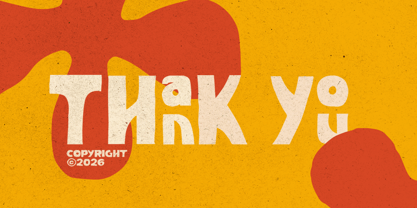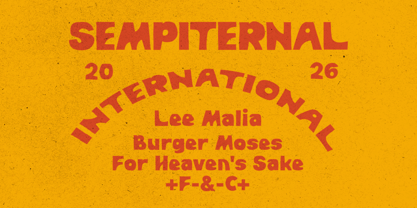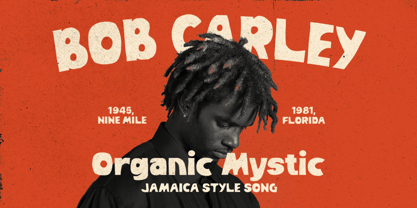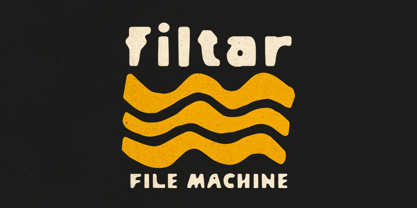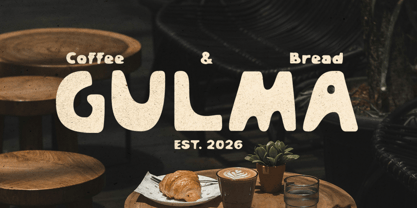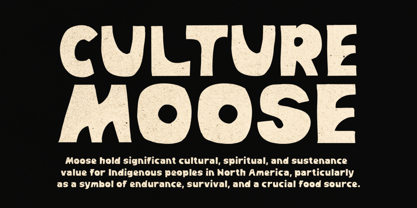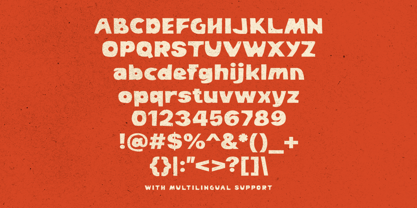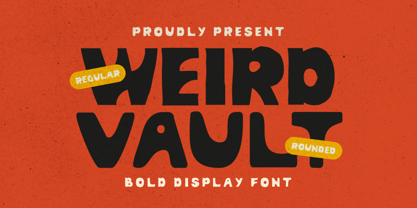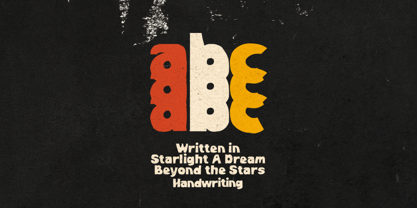
Weird Vault
La familia tipográfica Weird Vault fue diseñada por Ridho Azumarta y publicada por Bale Type. Weird Vault contiene 2 estilos y opciones de paquete familiar. Más información sobre esta familia
Weird Vault is a roughly handmade display bold font designed to bring a strong, authentic, and human-crafted character to your work. It comes in both Regular and Rounded styles, giving you the flexibility to choose the look that best fits your creative needs. With its bold presence and organic imperfections, Weird Vault is perfect for a wide range of applications, including logotypes, quotes, branding projects, packaging, posters, merchandise, social media graphics, and other designs that require a distinctive handcrafted feel. The font balances strength and personality, making it suitable for both modern and vintage-inspired projects. Additionally, Weird Vault includes multilingual support, allowing you to create designs for a broader international audience with confidence.